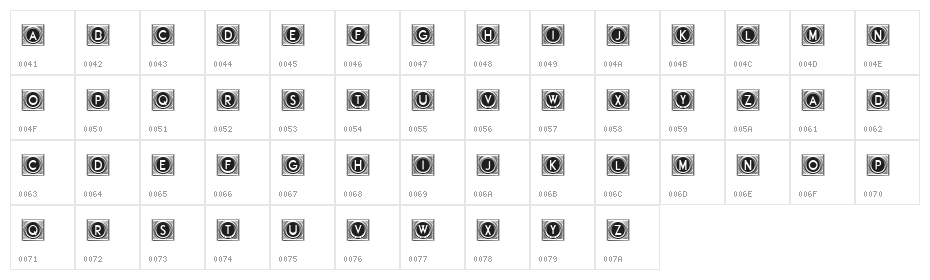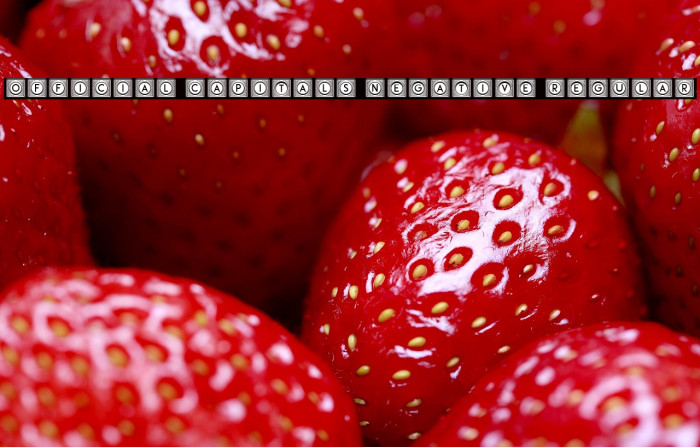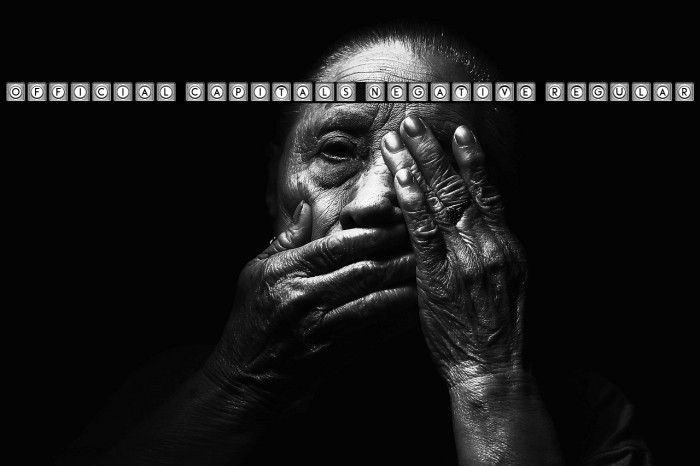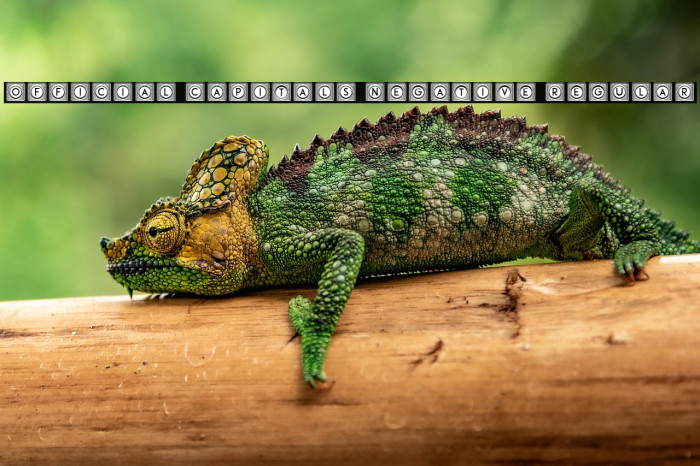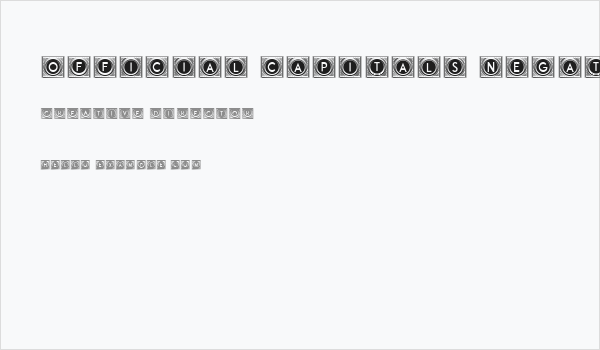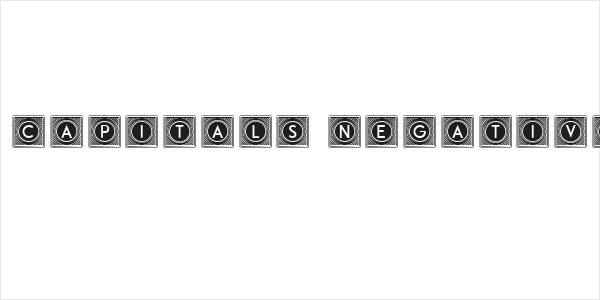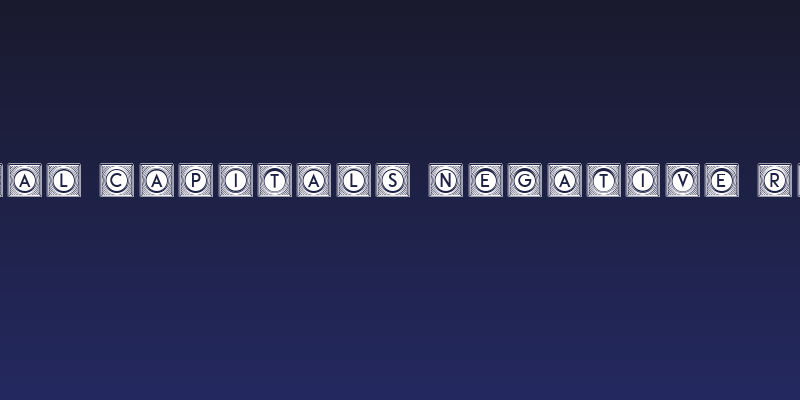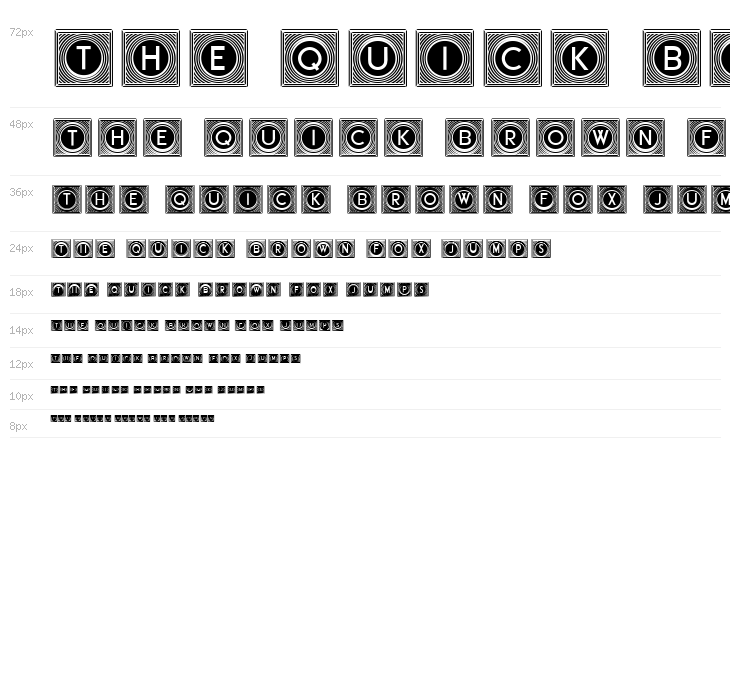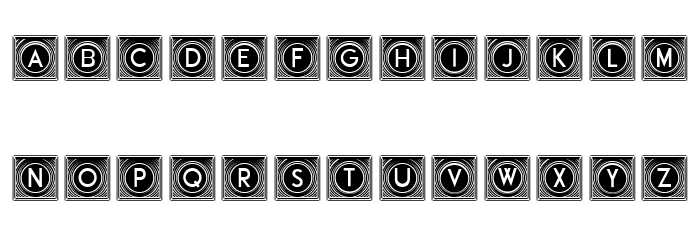
Official Capitals Negative Regular Font
Official Capitals Negative Regular Description
This font features uppercase letters encased within a decorative square border, creating a striking and bold appearance. Each letter is centered within a black square, surrounded by intricate white line patterns that form a layered, geometric design. The letters themselves are sans-serif, with clean and straightforward lines that contrast sharply with the ornate borders. The overall effect is one of elegance and sophistication, making it suitable for projects that require a touch of formality and style. The consistent use of negative space within the squares adds to the font's unique visual appeal.
| Use Case | Logos, Headlines, Decorative elements |
| Proposed Projects | Ideal for luxury branding, invitations, event posters, and decorative signage. |